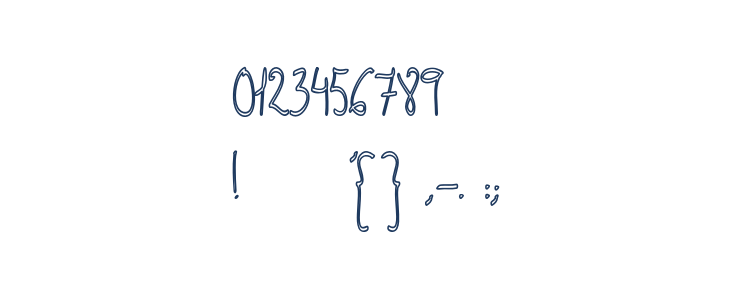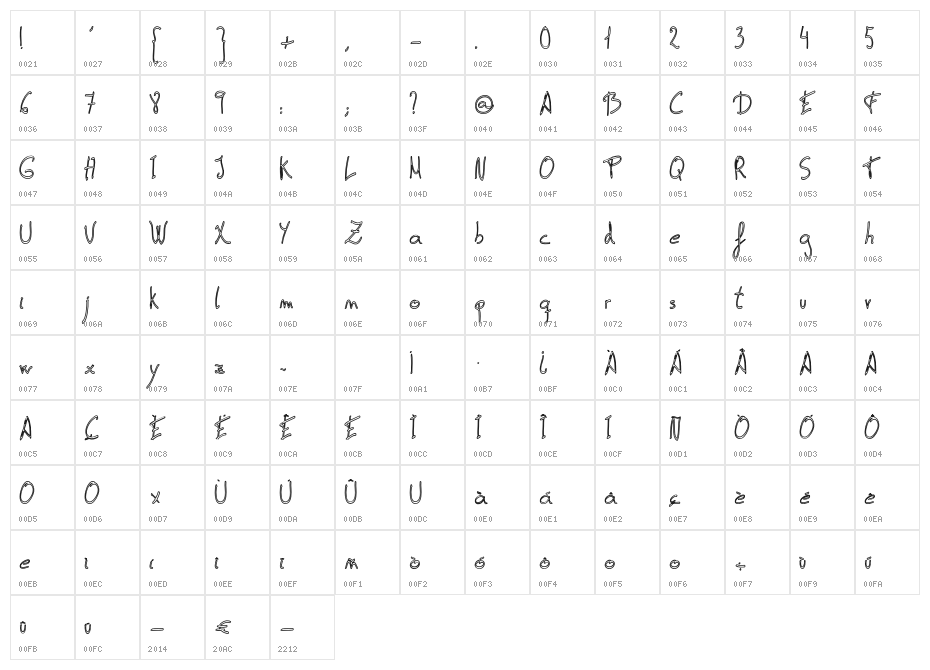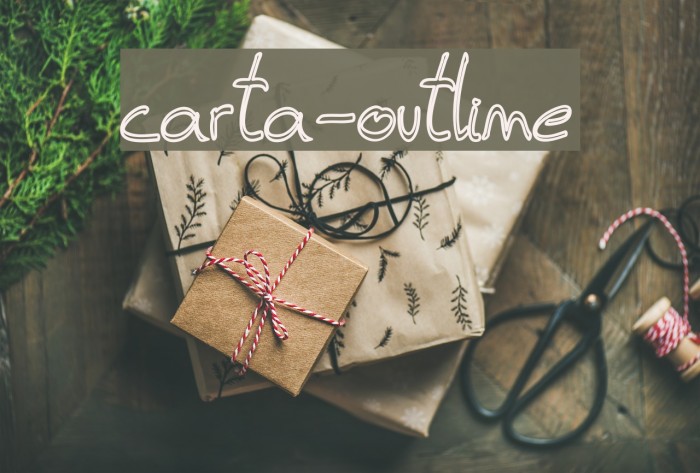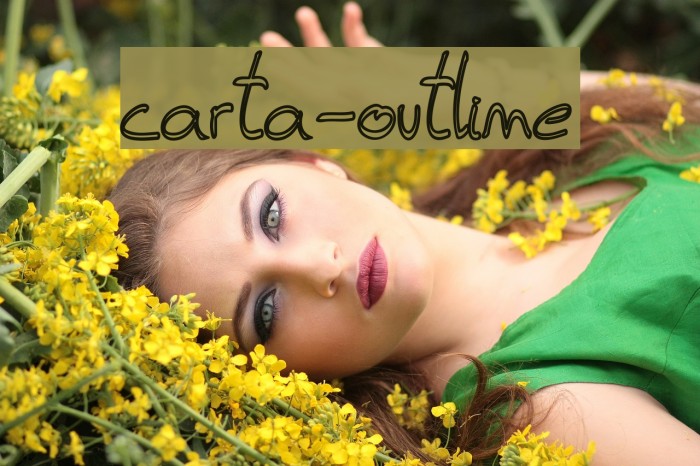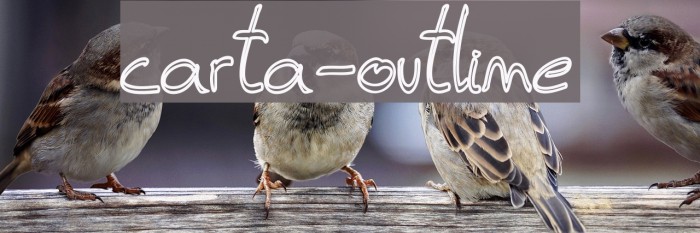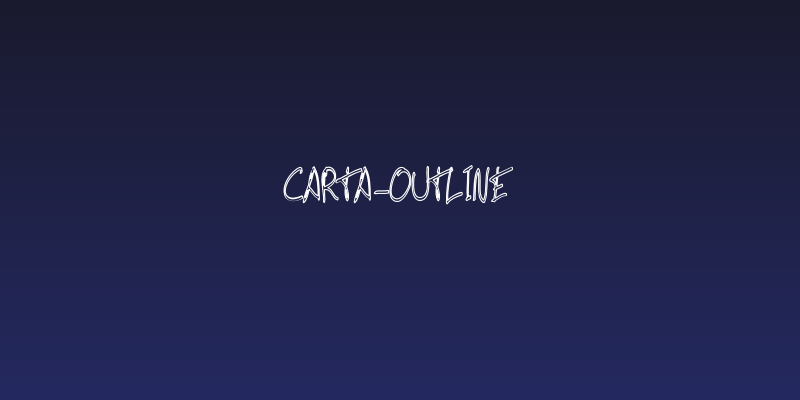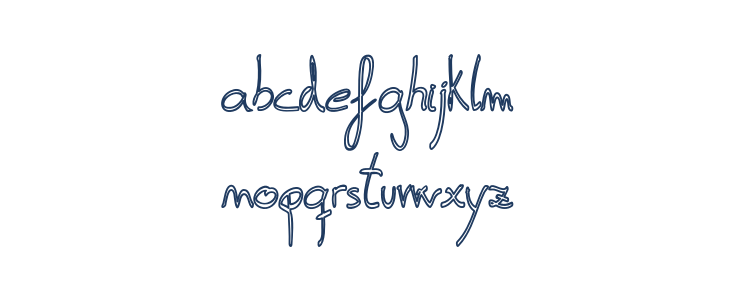
carta-outline Font
carta-outline Description
This font features a playful and artistic outline style, characterized by its hand-drawn appearance. The uppercase and lowercase letters exhibit a whimsical and informal aesthetic, with irregular strokes that give it a unique charm. The numbers and special characters maintain this style, ensuring consistency across the font. The overall design is reminiscent of doodles or sketches, making it ideal for creative and informal projects. The font's outline nature adds a layer of depth and visual interest, making it stand out in various design contexts.